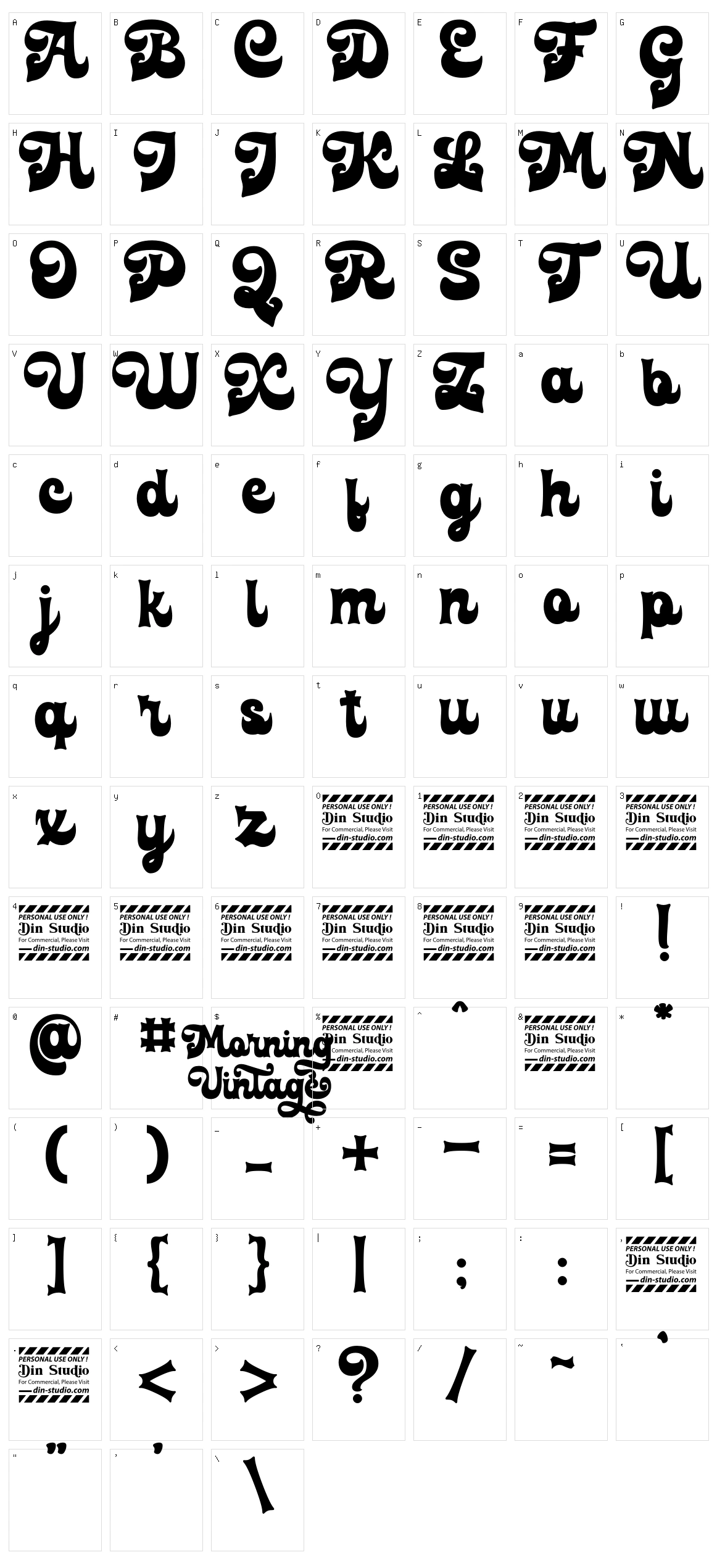
The free font Morning Vintage is carefully designed by Din Studio, showcasing a thoughtful balance of creativity and usability and falls under the Groovy font style. When you download the ZIP file, it contains only 334.09 KB of font files, making it lightweight and quick to download. Please review the license details below to understand permitted usage and distribution rights. If license information is not available, we recommend using this font for personal projects only or contacting the author directly for commercial usage permissions.